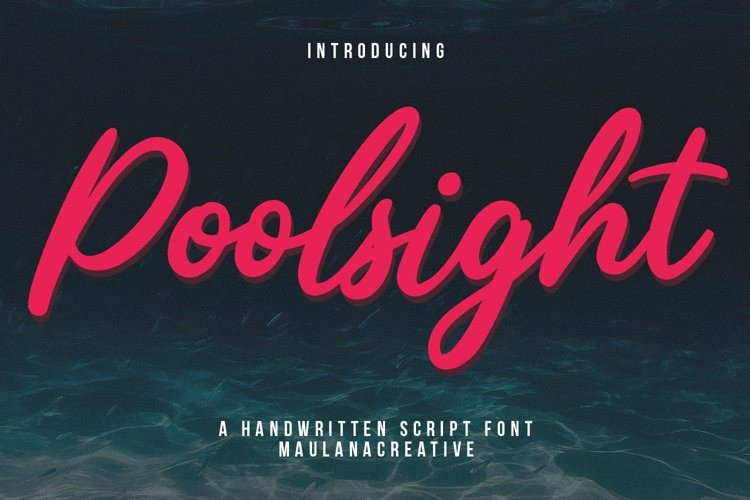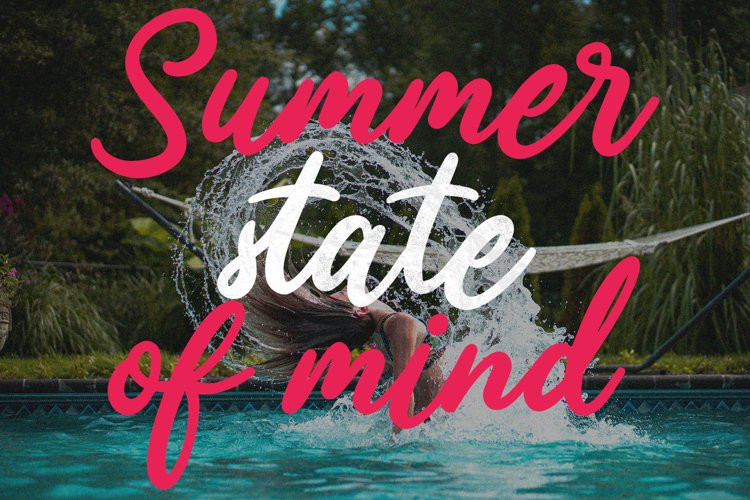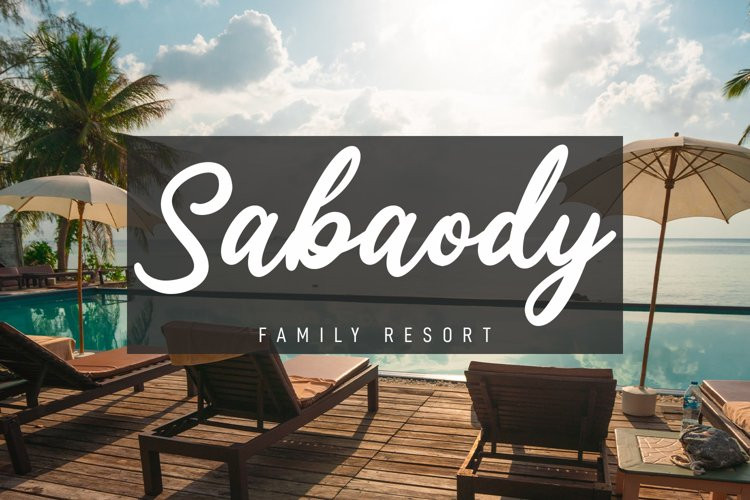
Poolsight Font
Poolsight FontPoolsight is a fcasual handwritten script font. With bold contrast stroke, fun character with a bit of ligatures and alternates. To give you an extra creative work. Poolsight font support multilingual more than 100+ language. This font is good for logo design, Social media, Movie Titles, Books Titles, a short text even a long text letter and good for your secondary text font with sans or serif. Make a stunning work with Poolsight font.